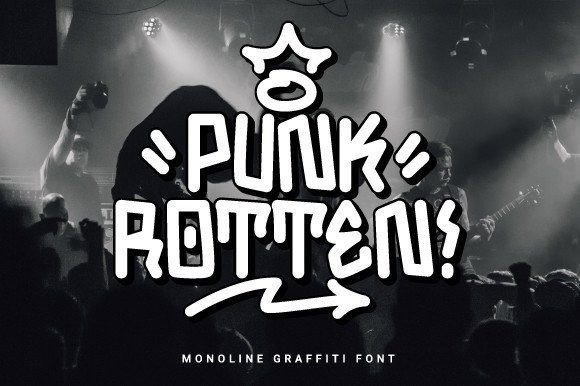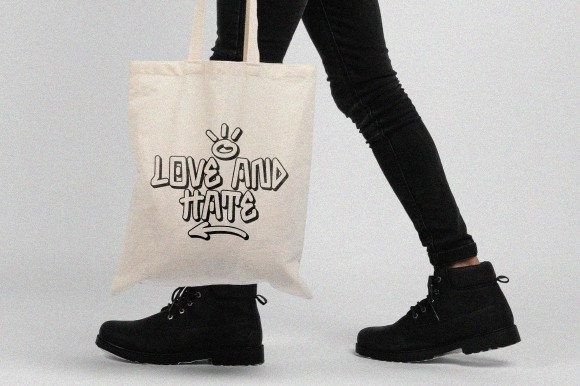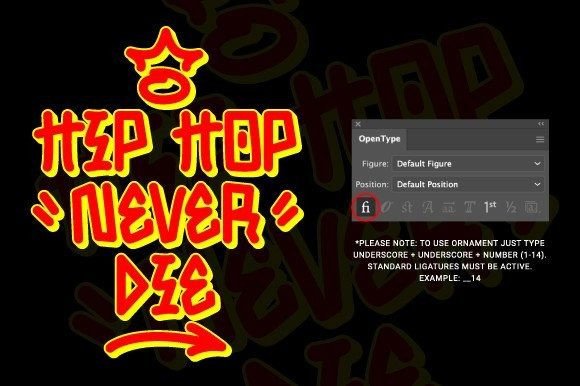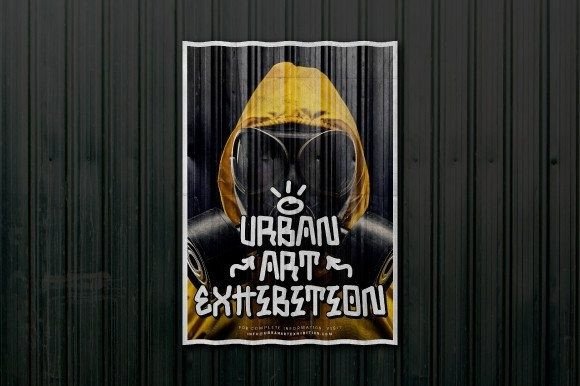
Punk Rotten Font
About the Punk Rotten Font
The wait is over! The incredible Punk Rotten Font is now available for your design toolkit. Punk Rotten is a modern, cool, urban-style display font. Trendy and stylish, this font will elevate each of your creations.
Punk Rotten excels as a display font for headlines, short impactful statements, and branding elements where a bold, rebellious attitude is desired. It’s ideal for posters, logos for edgy brands, and packaging for products targeting a younger, alternative demographic. Avoid using it for body text or long-form content; its strong character doesn’t lend itself to readability in smaller sizes or extended passages.
Its rebellious and modern personality pairs well with clean sans-serif fonts like Montserrat or Open Sans for a balanced contrast, or a more geometric sans-serif like Futura for a sharper, more controlled feel. A handwritten script font could add a touch of raw authenticity, while a classic serif like Garamond could unexpectedly create a sophisticated juxtaposition, highlighting the contrast between order and chaos.
Punk Rotten’s core personality is aggressive yet stylish; it conveys a youthful, rebellious energy. Consider pairing carefully to avoid overwhelming the design. Think bold statements, not subtle whispers.
Punk Rotten Font Usage Examples
Punk Rotten Font Example